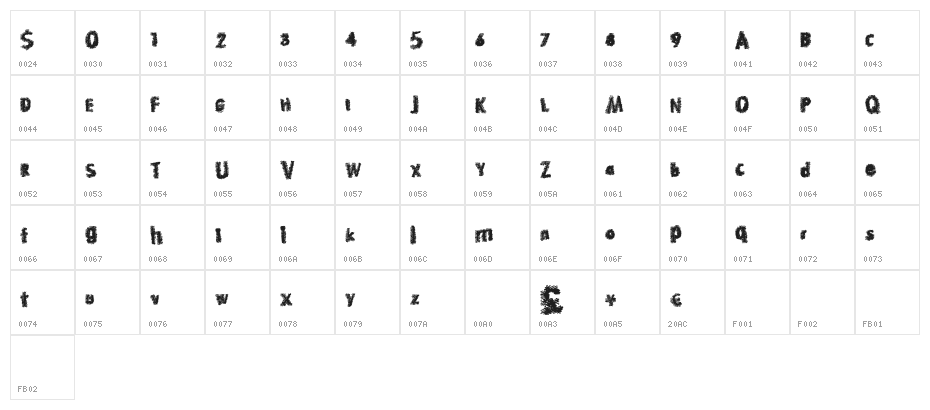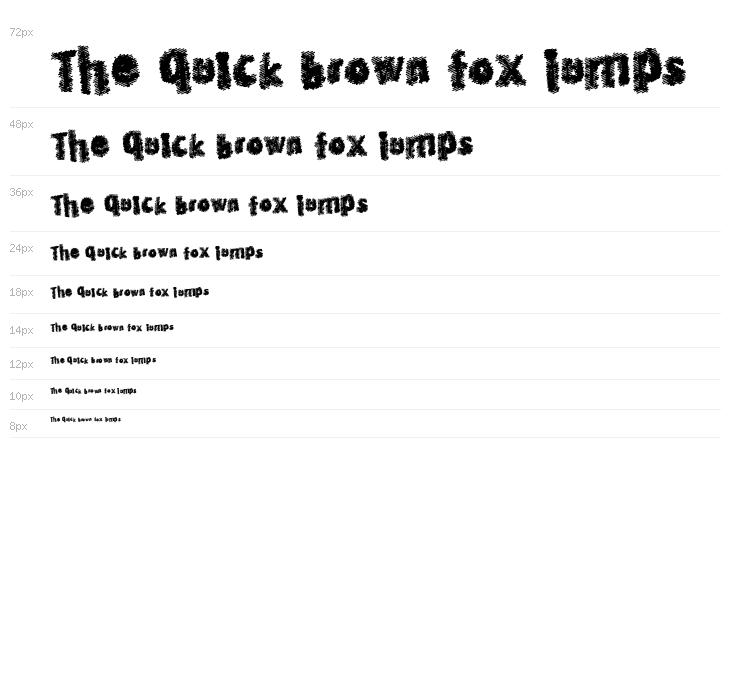
HotDiscovery Font
HotDiscovery Description
This font features a unique, textured appearance that resembles hand-drawn or sketch-like strokes. The characters are bold and have a playful, artistic feel, making them stand out with their irregular edges and dynamic forms. The uppercase and lowercase letters maintain a consistent style, with a slightly rough and uneven texture that adds to the overall charm. Numbers and special characters follow the same design, ensuring uniformity across all glyphs. The font's distinctive style is eye-catching and ideal for creative projects that require a touch of originality and flair.
Use CaseLogos, Posters, Creative Designs
Proposed ProjectsIdeal for artistic projects, posters, branding, and any design requiring a creative, handmade look.